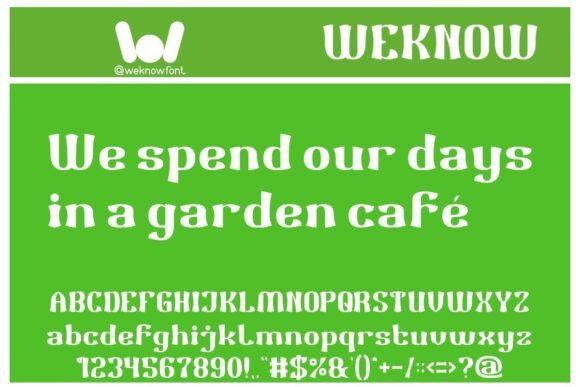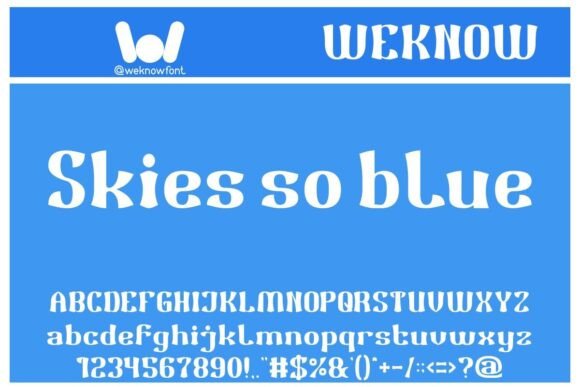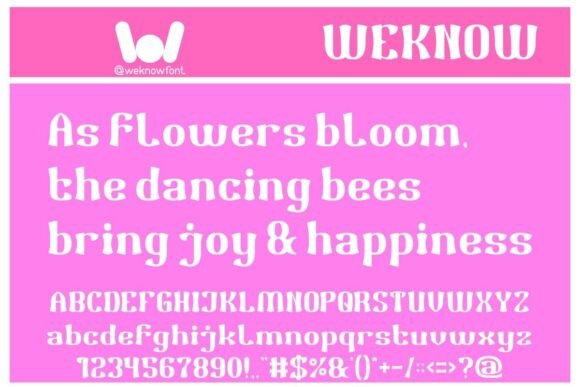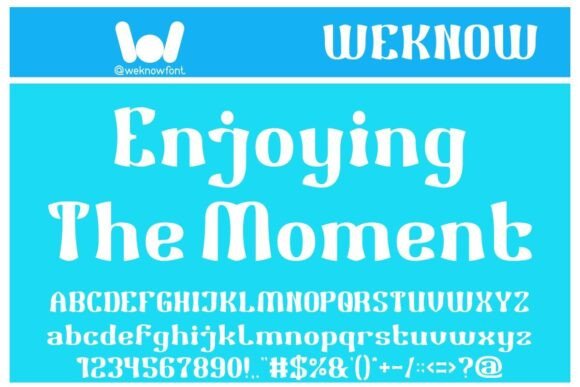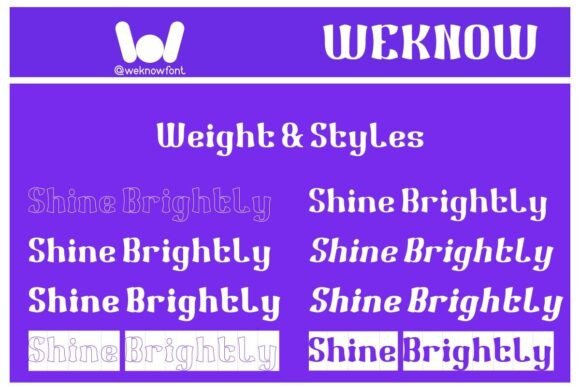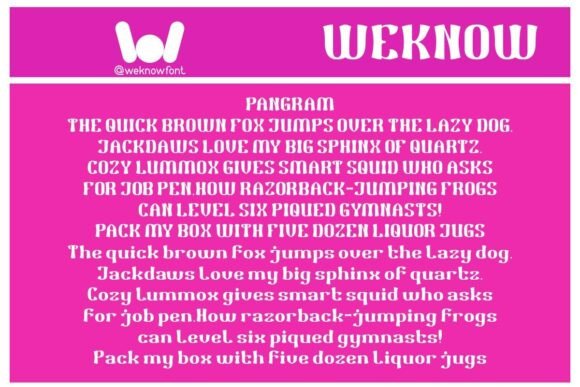
Introduction to Shine Brightly Font
Experience the whimsical charm of Shine Brightly, a multifaceted display font radiating a playful, creative aura with a retro-modern twist.
Exceptionally versatile, Shine Brightly is a perfect accent for logos, headlines, and corporate identities, bolstering your brandโs presence with its distinctive style Treat your apparel designs to its eclectic charm, and watch it light up your music, movie, and game projects.